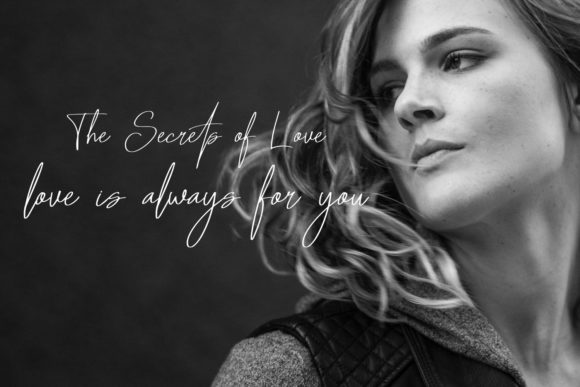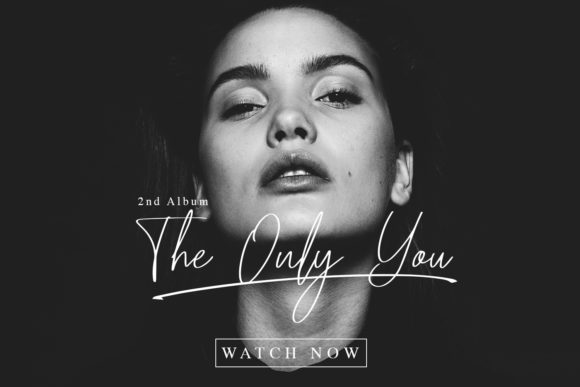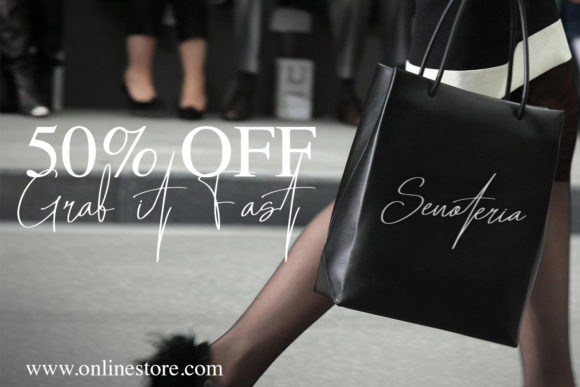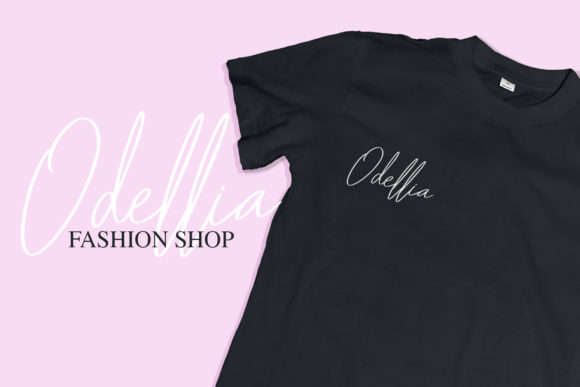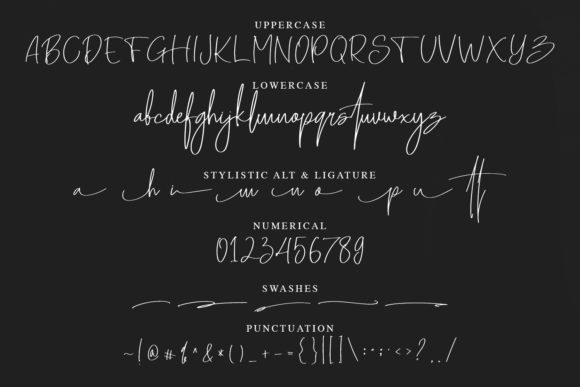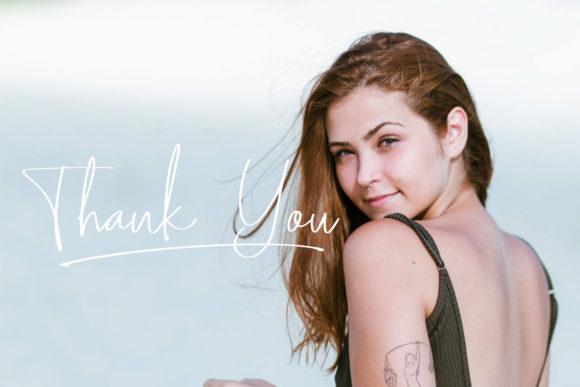
Introduction to Senoteria Font Font
Fonts play a crucial role in design, and the Senoteria Font font is a typeface that brings both character and versatility to any project. Whether you’re working on a branding project, a website, or a print design, the Senoteria Font font offers a unique style that can elevate your work.
Senoteria is an elegant script font full of charm.
Key Features of Senoteria Font Font
Why Choose Senoteria Font Font?
The Senoteria Font font is more than just a typeface – it’s a design tool that helps you communicate your message with style and clarity. Its unique character set and versatile design make it suitable for a wide range of applications, from elegant invitations to bold headlines.
With its carefully crafted letterforms and balanced proportions, the Senoteria Font font ensures readability and visual appeal across all mediums.
What makes Senoteria Font font special?
The Senoteria Font font stands out with its unique design, exceptional readability, and versatility across various design applications.